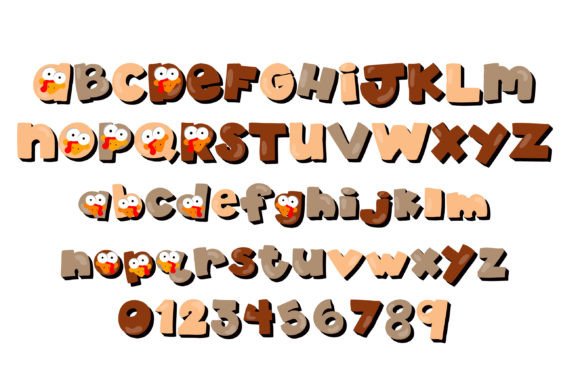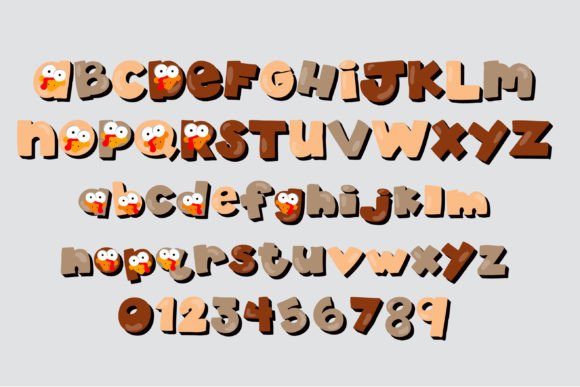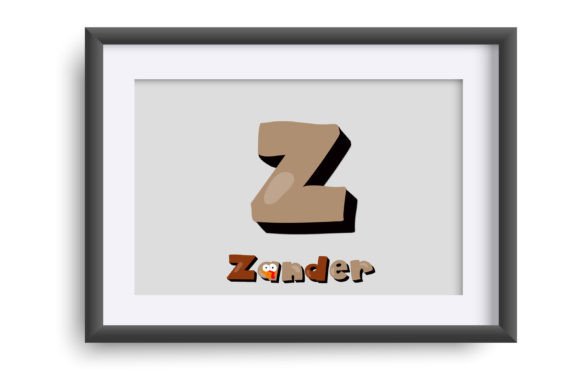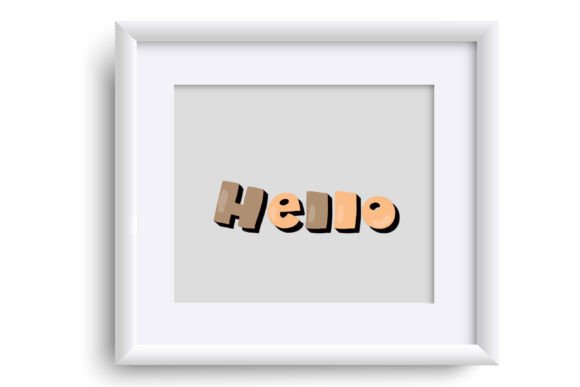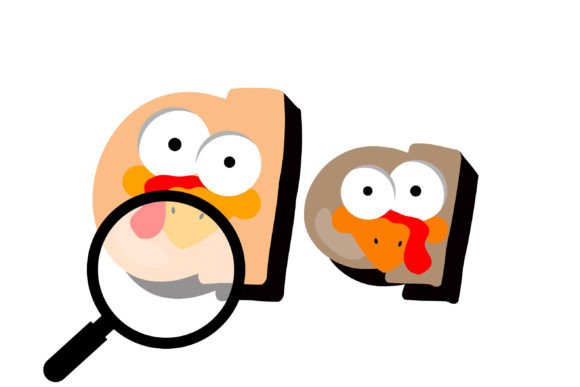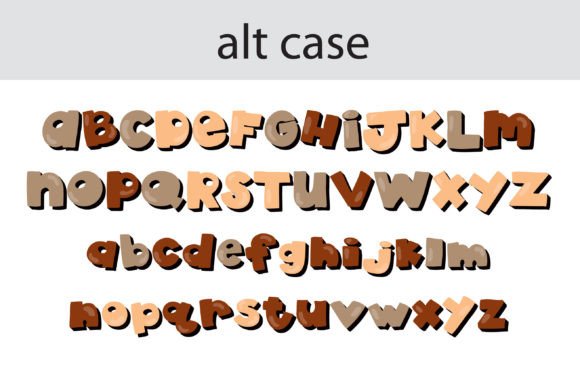
Gobble Giggles Font: Add a Touch of Whimsy to Your Designs
Are you looking for a font that can add a dash of personality to your designs? Look no further than the Gobble Giggles Font! This full-color font features whimsical lettering with big black shadows and turkey faces throughout, making it perfect for designers and crafters who want to create eye-catching projects.
What Makes Gobble Giggles Font So Special?
The Gobble Giggles Font is a unique and playful font that is sure to bring a smile to your face. Its whimsical design features big black shadows and turkey faces throughout, giving it a fun and festive feel. But that’s not all – this font also allows you to create two turkeys by simply typing the greater than and less than glyphs. How cool is that?
Accessing Additional Colors and Glyphs
But what really sets the Gobble Giggles Font apart is its alt case feature, which provides additional colors that can be accessed through your system or Silhouette’s glyph map. This means you can customize your designs even further and make them truly one-of-a-kind. And with OpenType full-color (SVG) fonts, you can install the font like any normal .otf font, making it easy to use and integrate into your design workflow.
The Benefits of Full-Color SVG Fonts
Full-color SVG fonts like the Gobble Giggles Font offer a range of benefits for designers and crafters. For one, they provide a full range of colors and a unique, eye-catching design that can help your projects stand out. They also offer a level of customization and flexibility that traditional fonts simply can’t match. And with their ease of use and installation, it’s never been easier to add a touch of personality to your designs.
The Gobble Giggles Font is perfect for designers and crafters who want to add a touch of whimsy and personality to their projects. Whether you’re creating custom signs, invitations, or scrapbook pages, this font is sure to bring a smile to your face and make your designs pop. And with its ease of use and compatibility with a range of design programs, you can get started right away and start creating your own unique designs.
Tips and Ideas for Using the Gobble Giggles Font
So, how can you use the Gobble Giggles Font in your designs? Here are a few tips and ideas to get you started:
In conclusion, the Gobble Giggles Font is a unique and playful font that is sure to add a touch of personality to your designs. With its whimsical design, big black shadows, and turkey faces throughout, it’s perfect for designers and crafters who want to create eye-catching projects. And with its ease of use, compatibility with a range of design programs, and full range of colors, it’s never been easier to bring your designs to life.